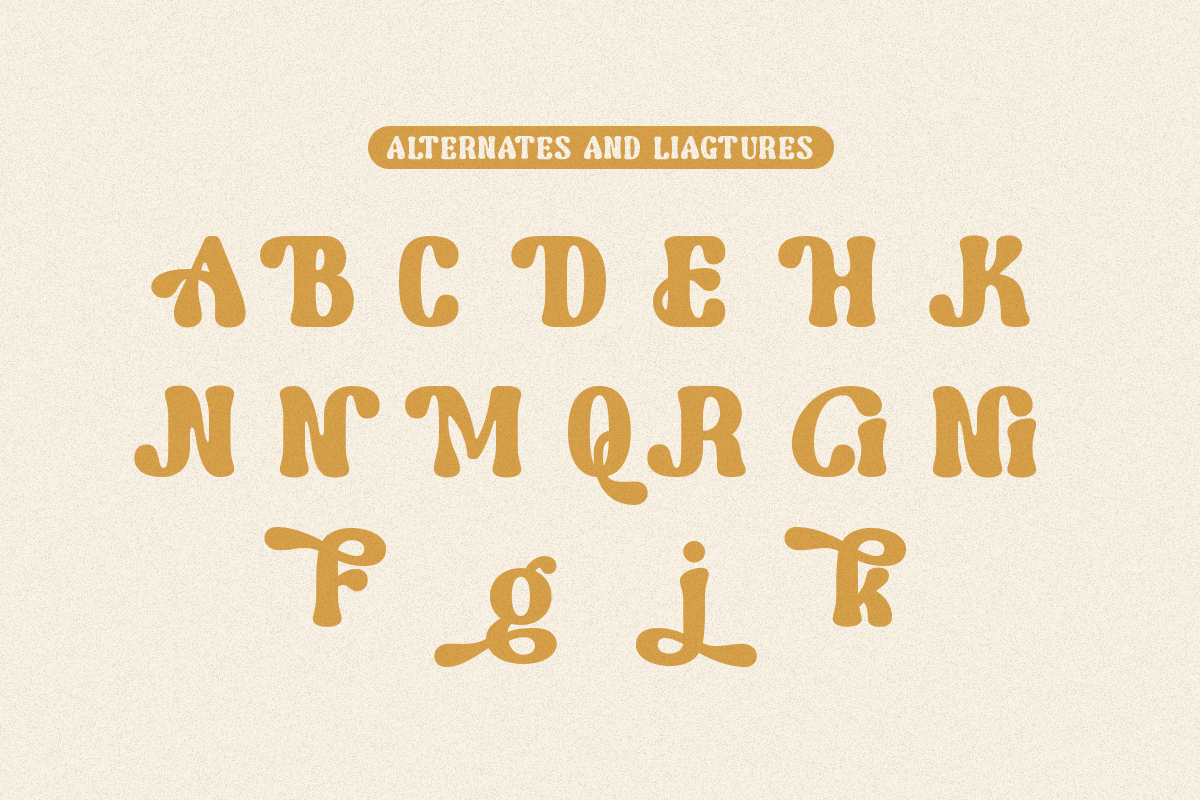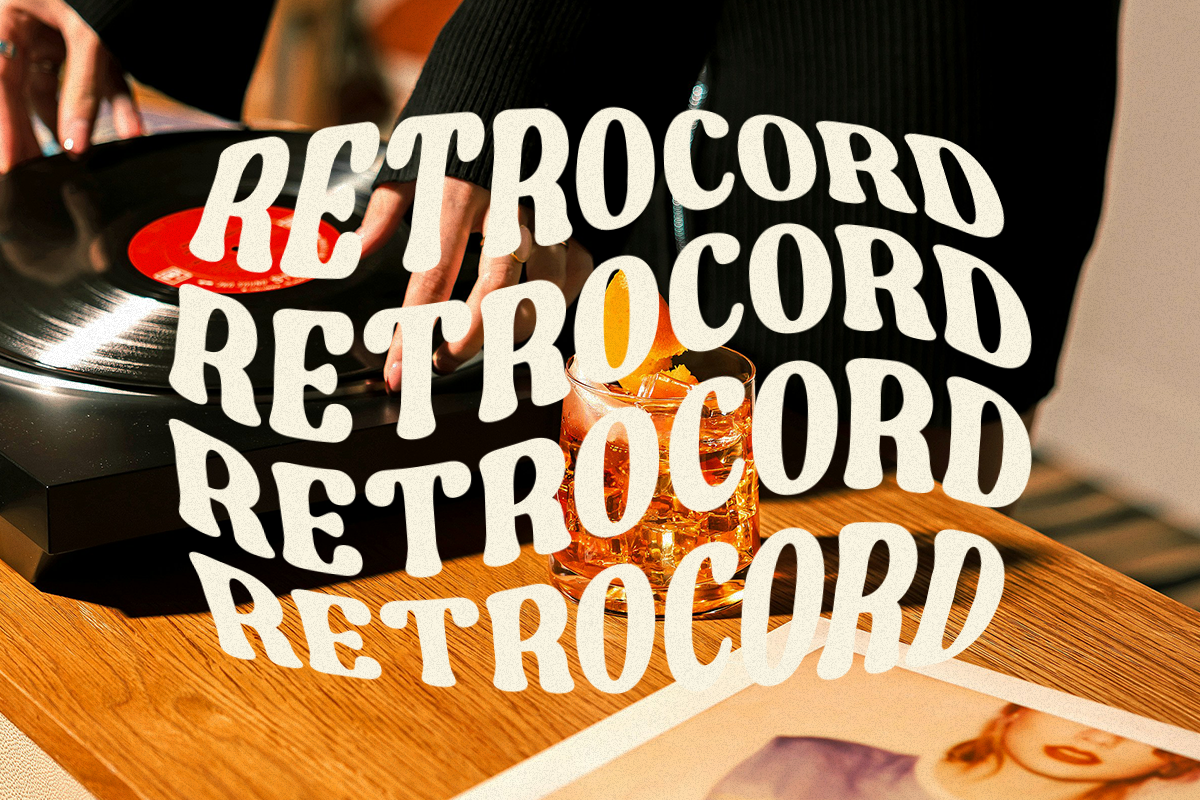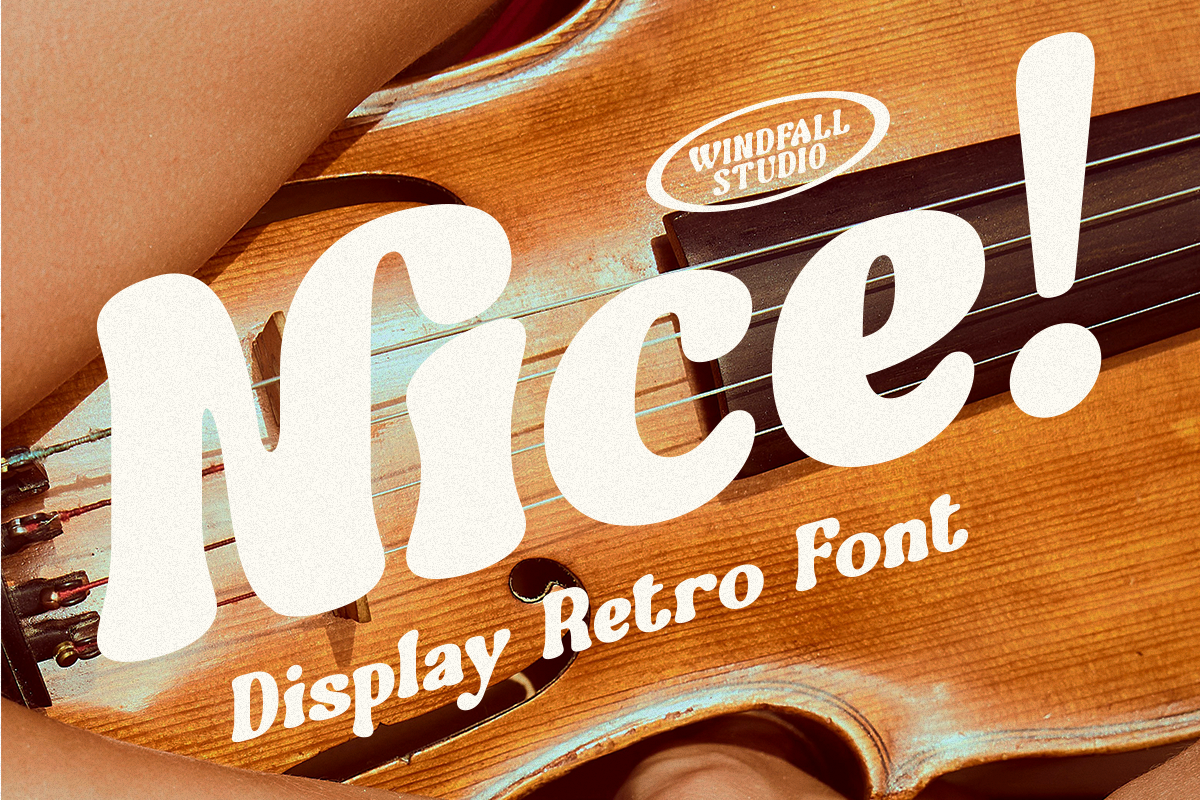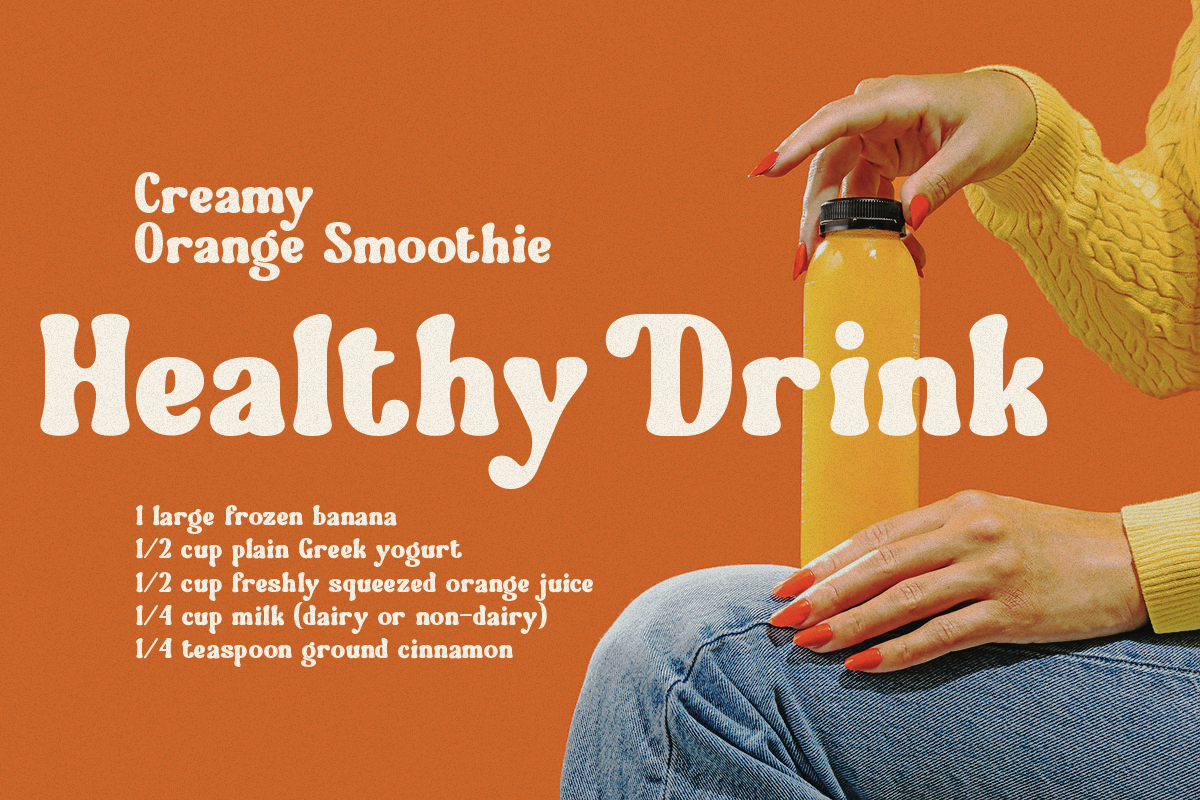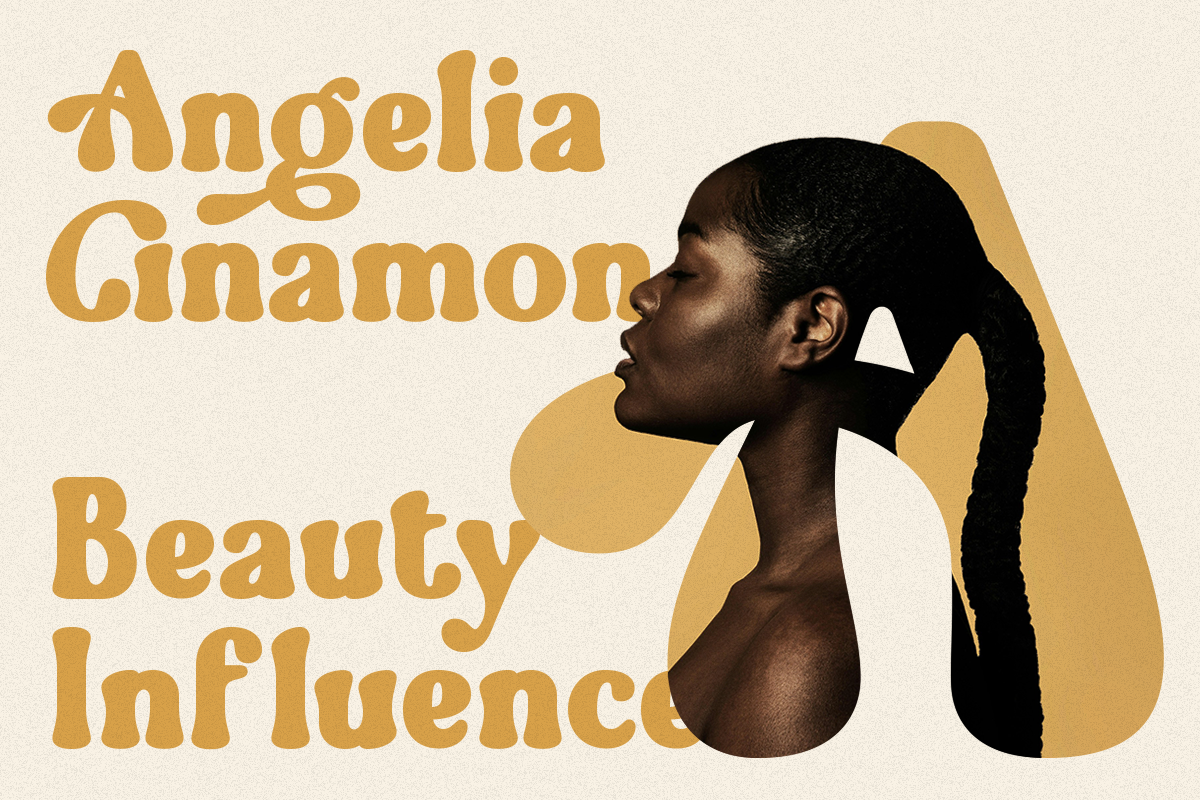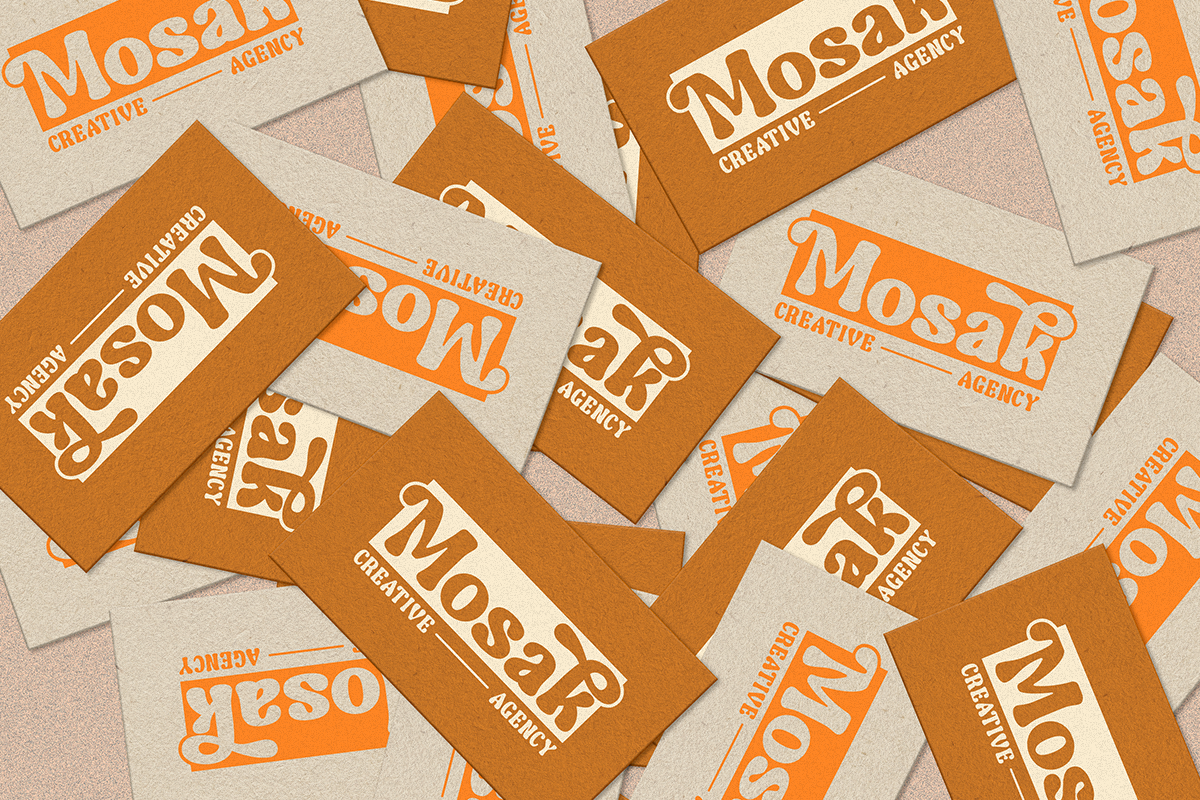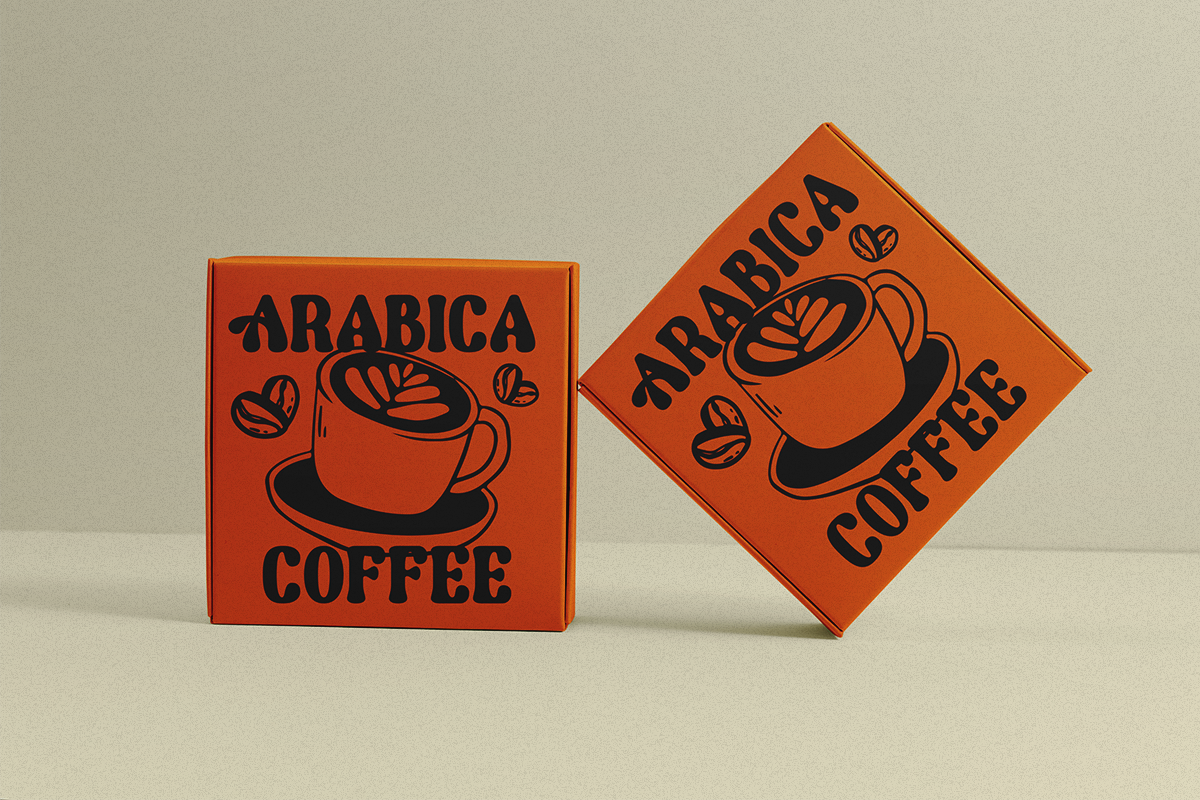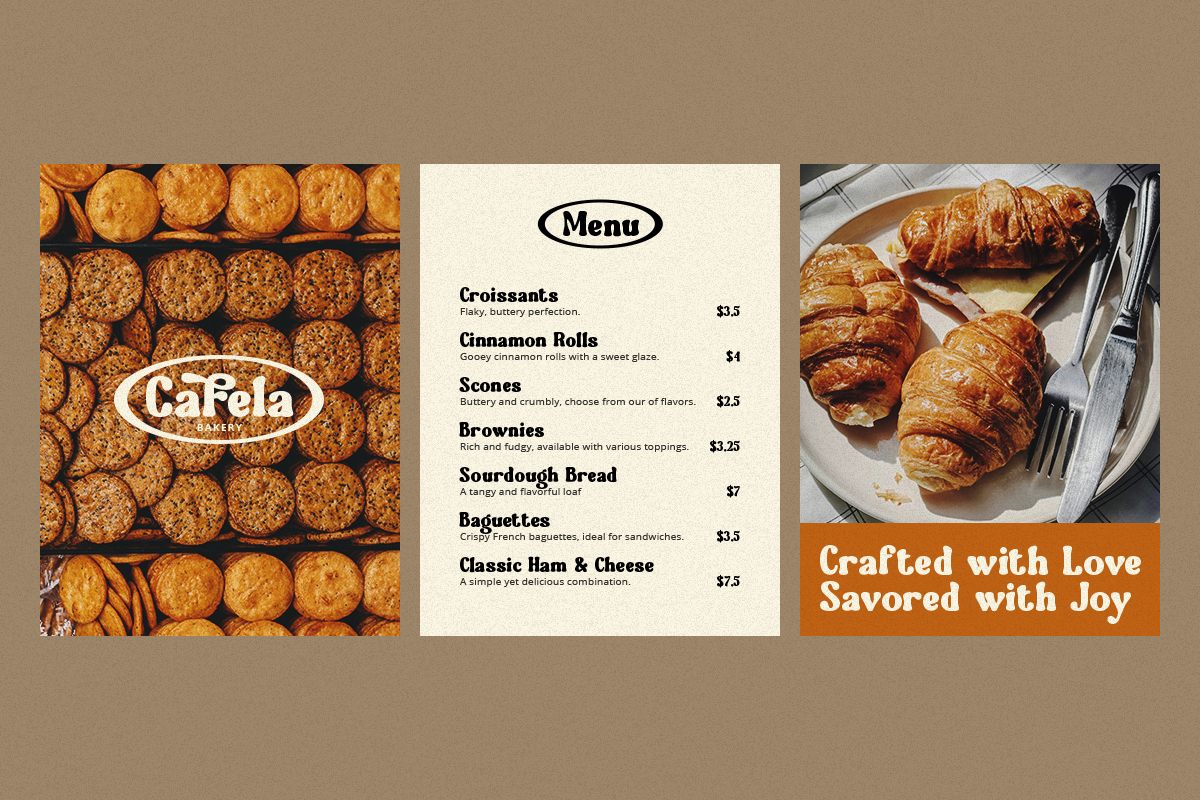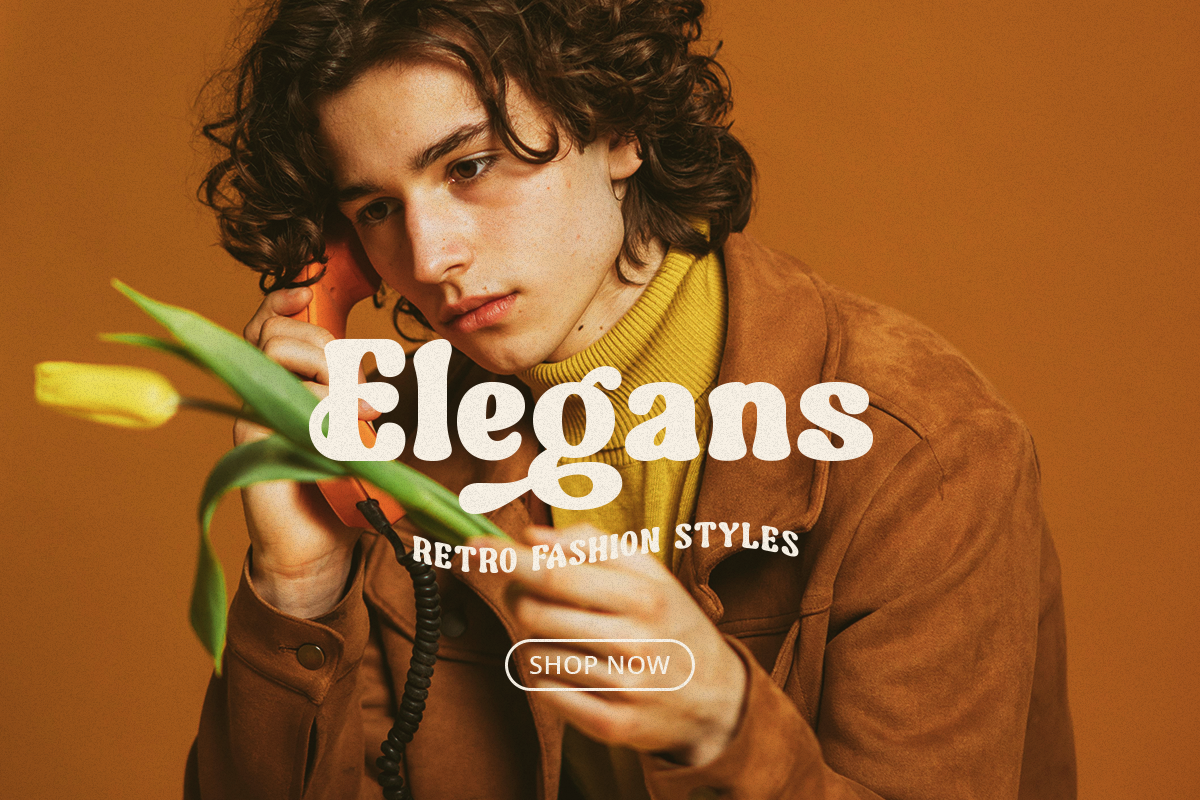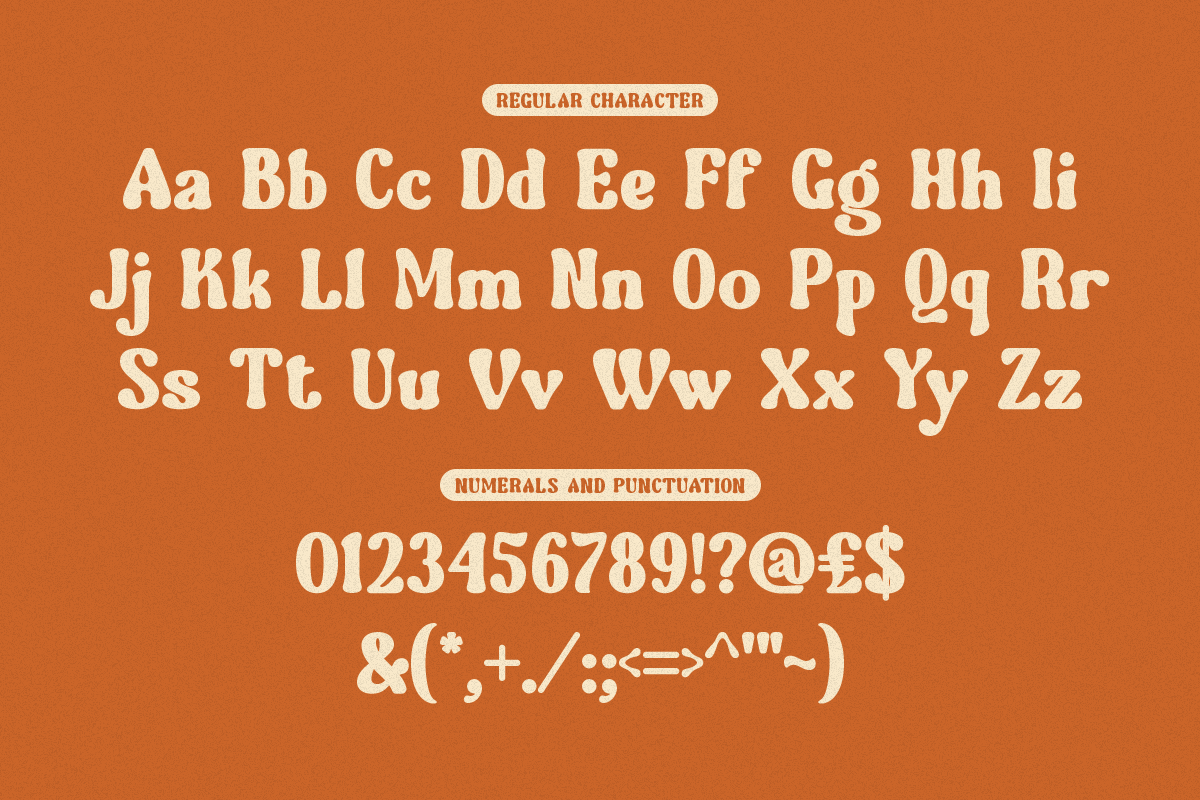
Nice - Playful Retro Font
Nice is a playful retro font that exudes the joy and warmth of the vintage era. Combining classic retro elements with a modern touch, this font offers a fun and captivating atmosphere. Perfect for projects requiring a bright, funky, and joyful ambiance.